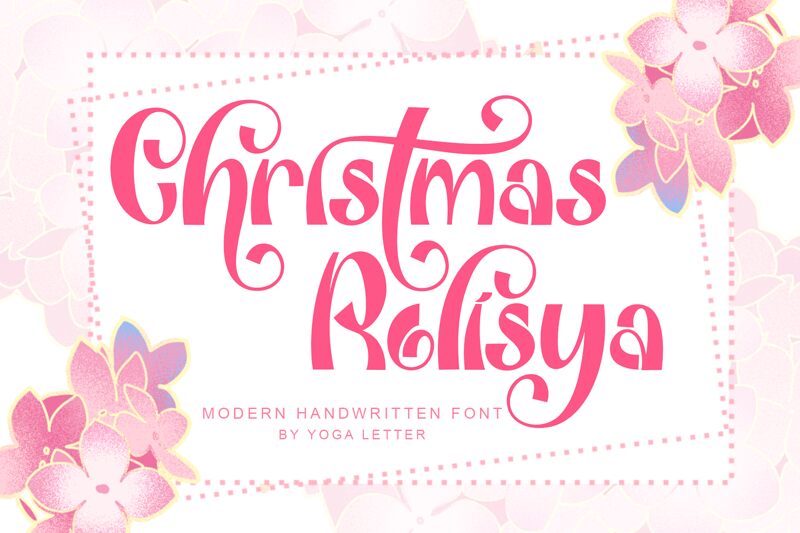
Christmas Rolisya font by Yoga Letter is a free holiday font with an elegant, modern handwritten style. The whimsical and cheerful display font draws inspiration from vintage designs and comes with decorative curves and dynamic character shapes. This stylish and sophisticated font is all set to make a statement through its festive and attractive look.